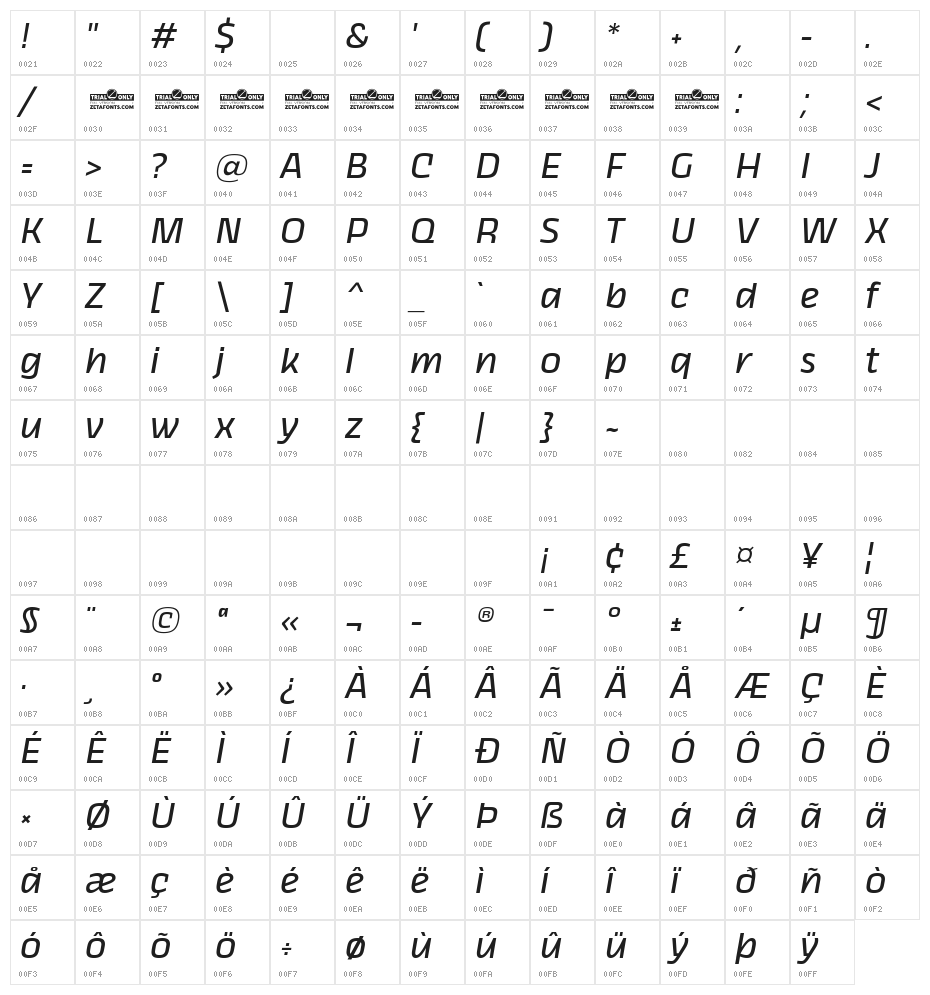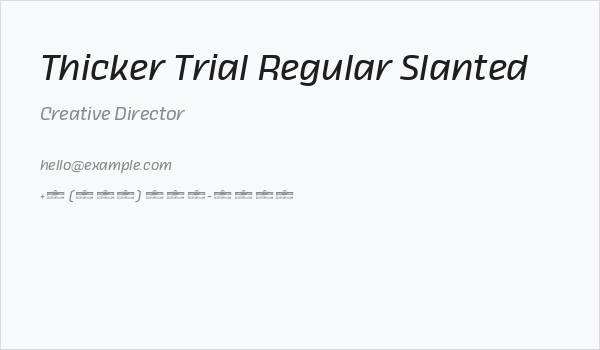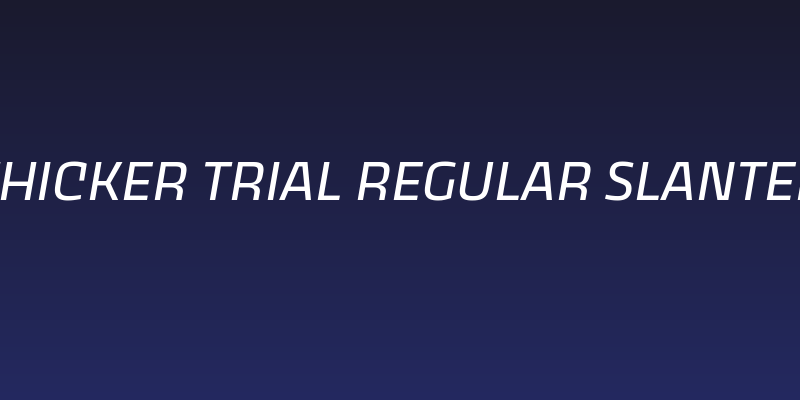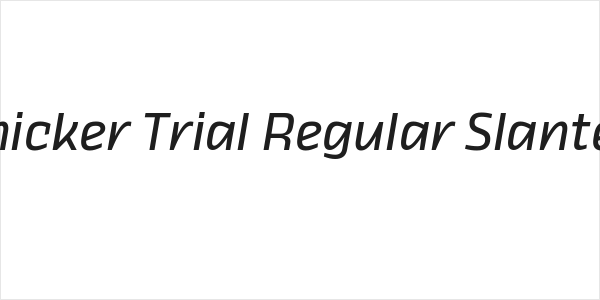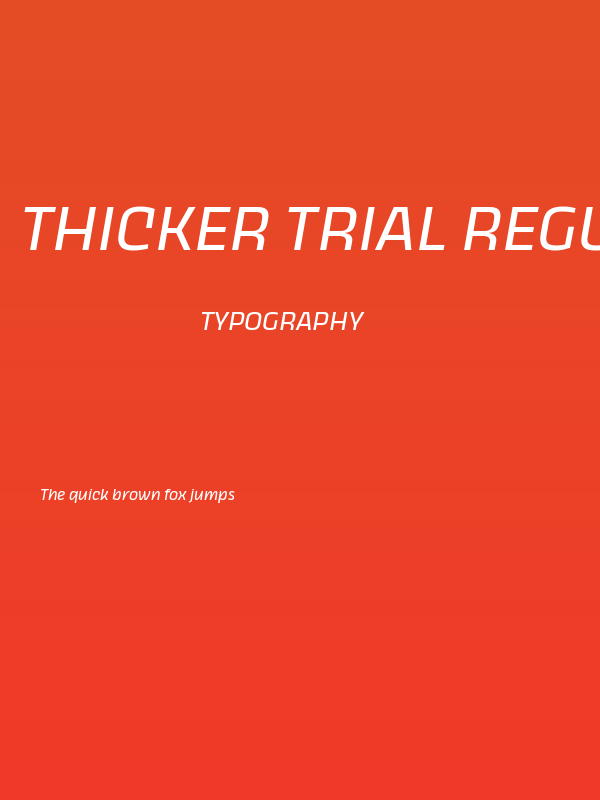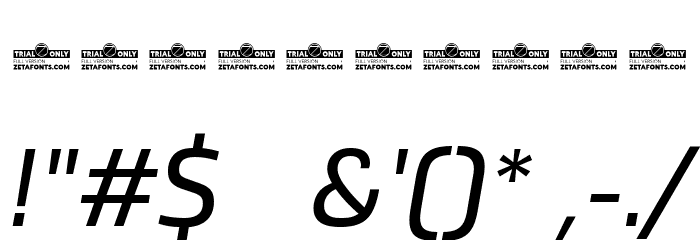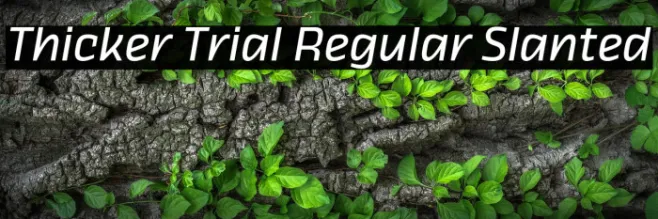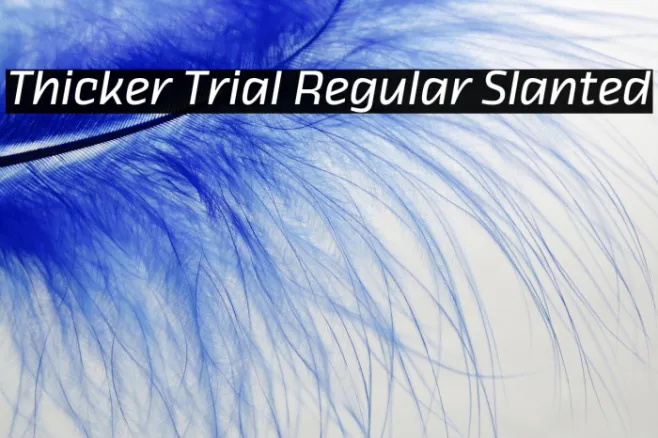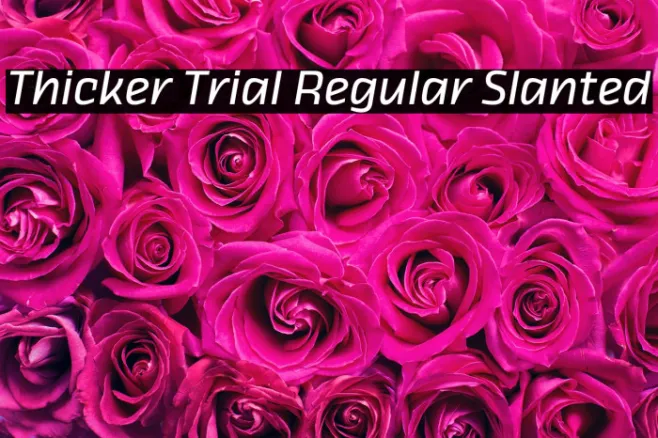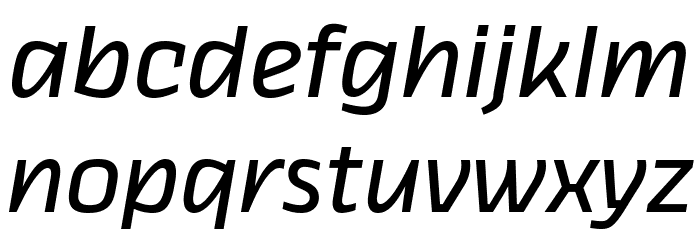
Thicker Trial Regular Slanted Font
Thicker Trial Regular Slanted Description
This font features a modern, slanted design with clean and smooth lines. The characters are slightly italicized, giving a dynamic and forward-moving appearance. Uppercase and lowercase letters are well-proportioned, maintaining readability while adding a touch of elegance. The numbers and special characters are consistent with the overall style, ensuring uniformity across different uses. The font's sleek and contemporary look makes it suitable for various design projects, offering versatility and a professional aesthetic.
| Use Case | Headlines, Logos, Digital media |
| Proposed Projects | Ideal for branding, advertising, and digital media projects where a modern and professional look is desired. |